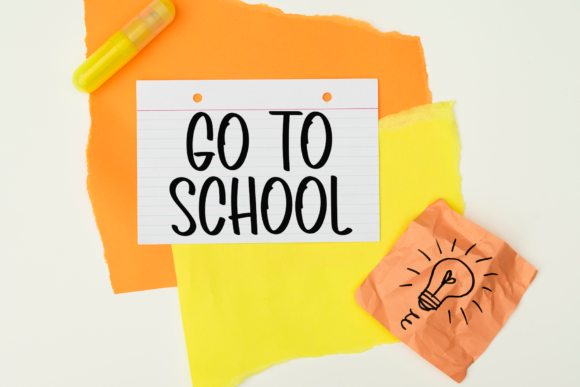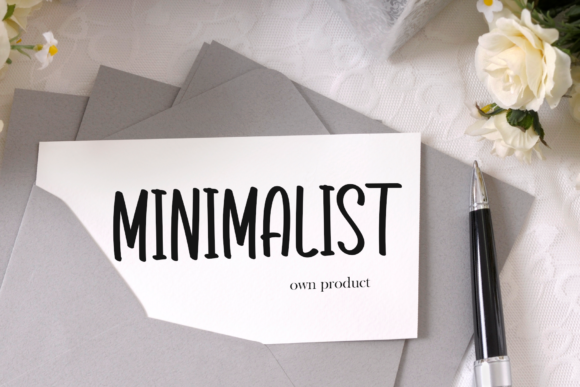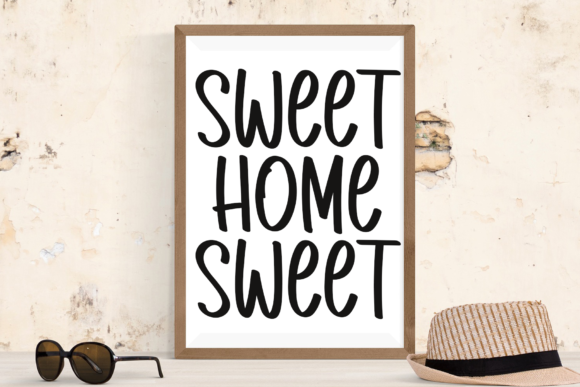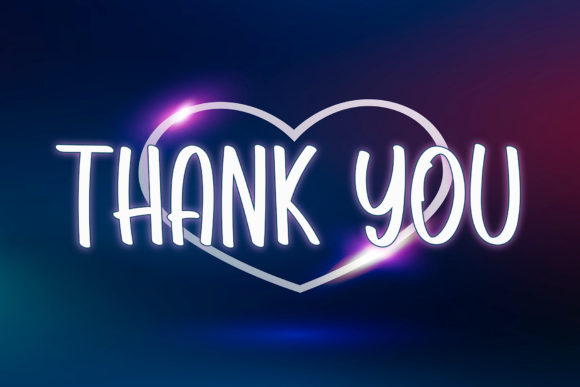
True Bestie Forever Font
About True Bestie Forever Font
“True Bestie Forever” is a cute and friendly handwritten font that brings a touch of charm to your designs. With a hint of quirkiness and playfulness, this font is perfect for brightening up any kids’ or school projects, adding a delightful and approachable vibe.
The friendly nature of “True Bestie Forever” makes it an ideal choice for creating materials aimed at children. Whether it’s educational resources, posters, or any project related to kids, this font adds a cheerful and inviting element.
Imagine “True Bestie Forever” adorning school projects, where its cute and handwritten style enhances the overall appeal. The font’s quirky nature adds character, making the content engaging and visually appealing to young audiences.
Incorporate this font into educational materials, such as worksheets or activity books, to infuse a sense of friendliness and fun. The playful strokes of “True Bestie Forever” contribute to a lighthearted atmosphere that resonates with children.
The versatility of this font extends beyond school projects; it can be used for various creative endeavors where a cute and friendly touch is desired. From greeting cards to playful branding materials, “True Bestie Forever” adapts easily to different design contexts.
As you integrate “True Bestie Forever” into your projects, let its cute and friendly handwritten style bring a smile to your audience. Whether you’re designing for kids or simply want to infuse a playful spirit into your creations, this font adds a delightful touch to your typography toolbox.